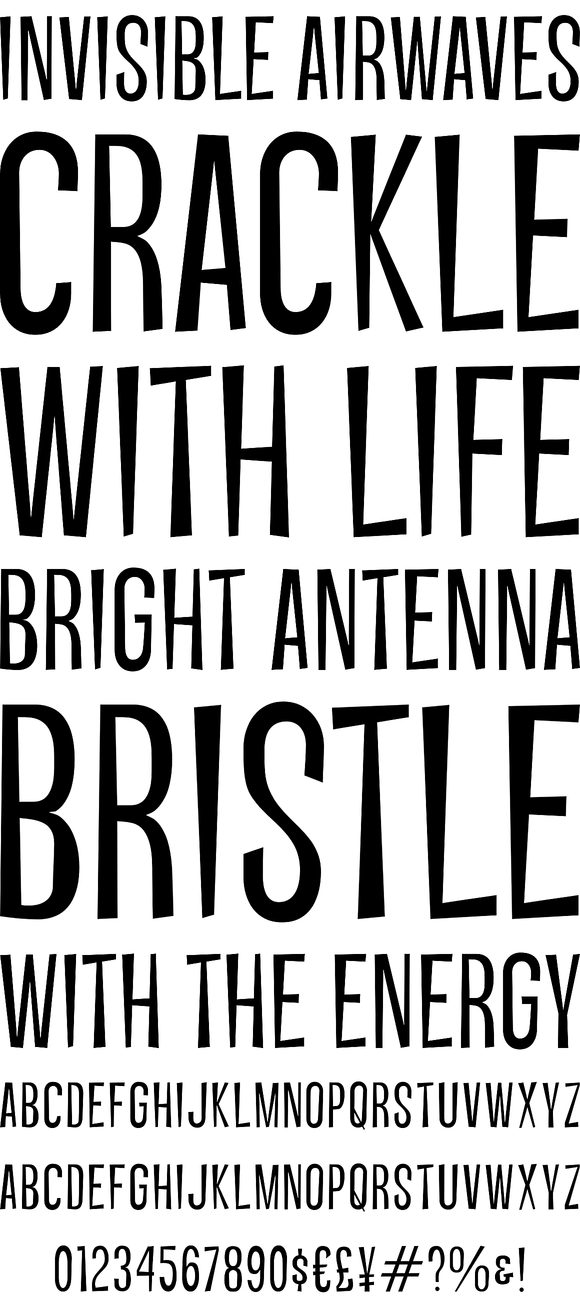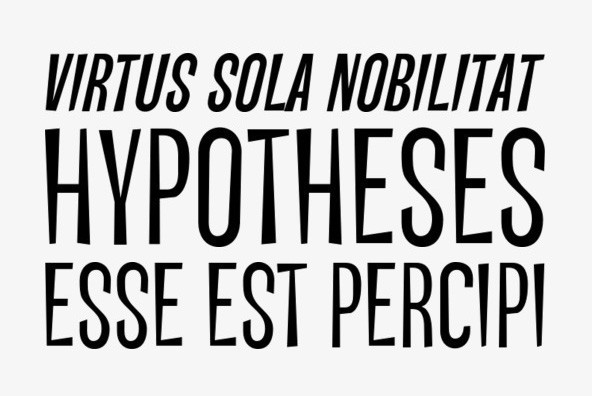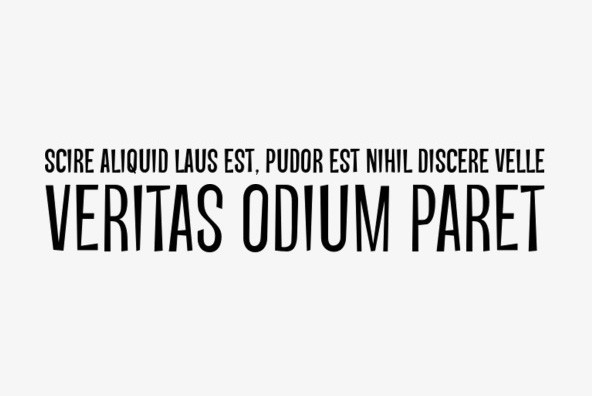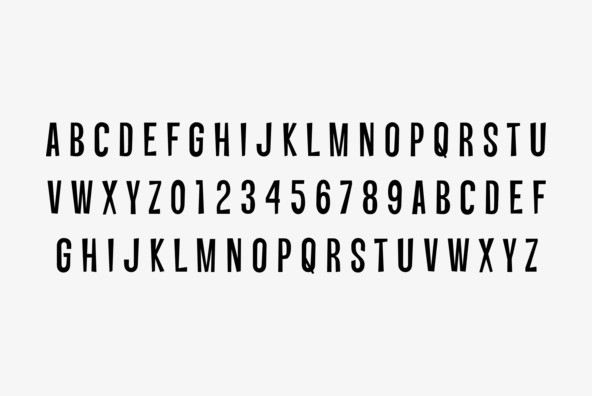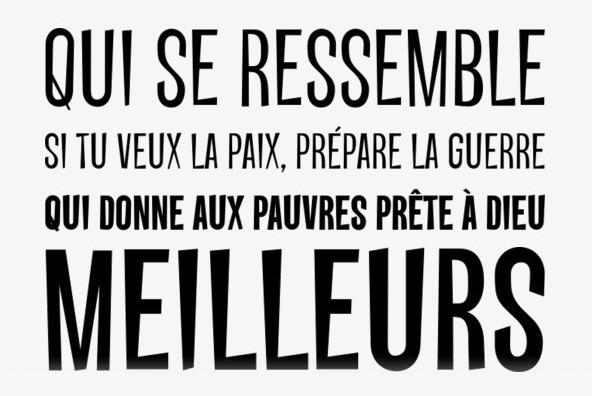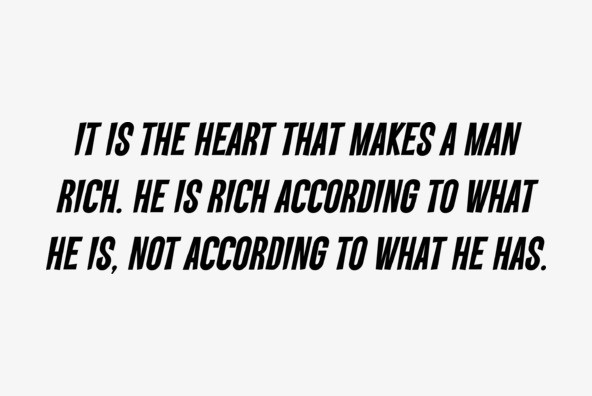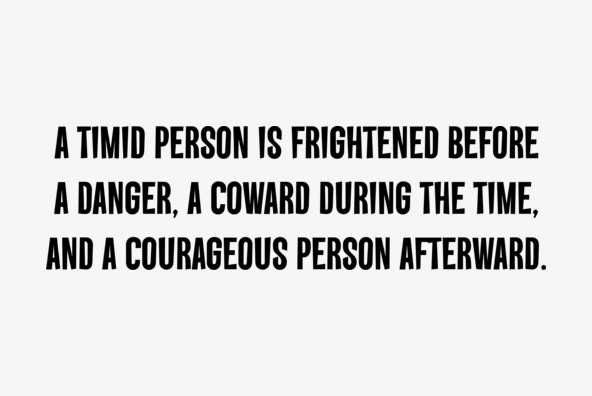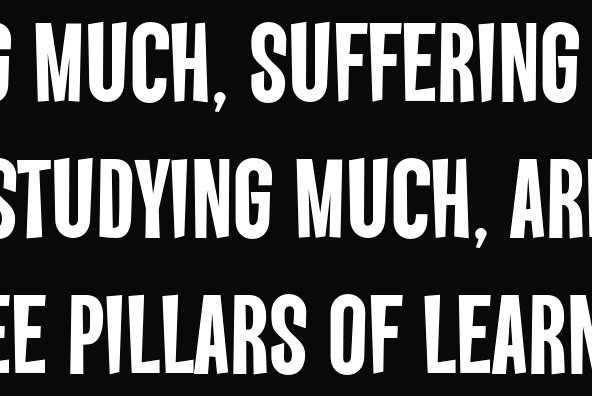
Vanishing Boy
Foundry: Breaking The Norm
Vanishing Boy is a typeface inspired by the logotype from a comic book series called the Invisibles. Complete with various weights, a cameo reversed style, and an unusual cropped style, this fun and offbeat typeface should be at your fingertips to let the good times begin!